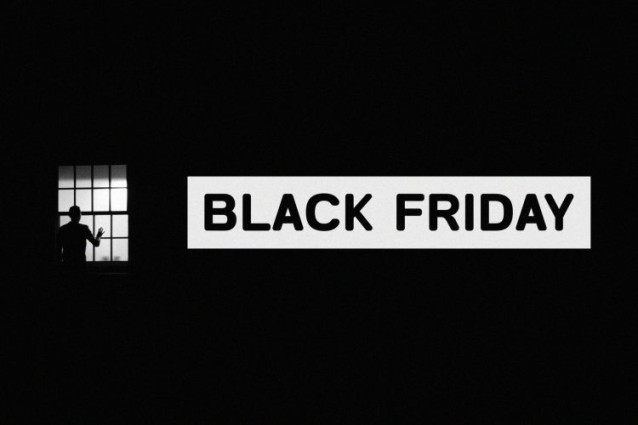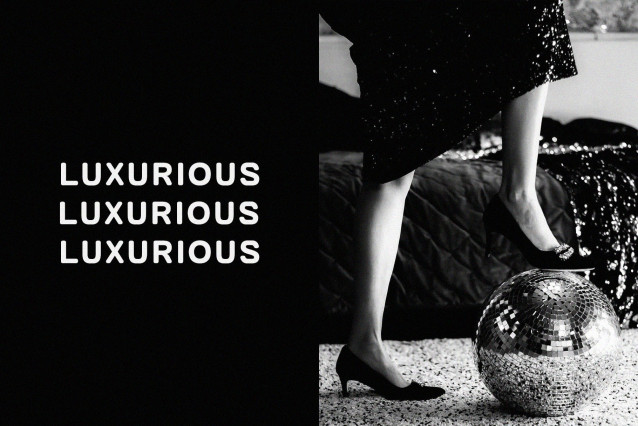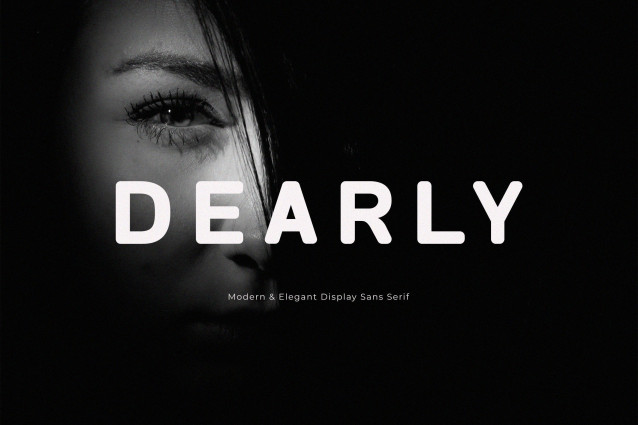
Dearly Font
Dearly Font is a modern and simple font, best used as a display for headings, logos, branding, magazines, product packaging and invitations.